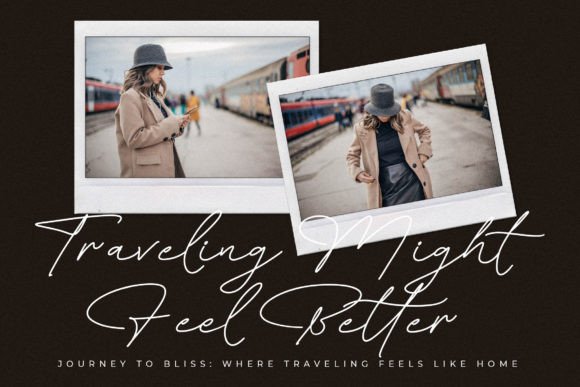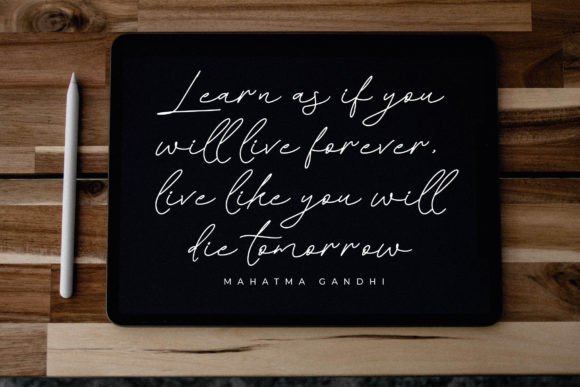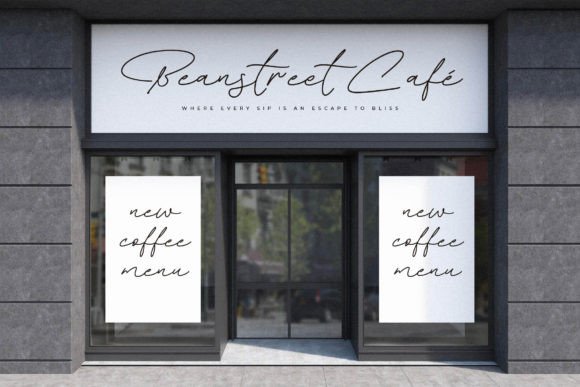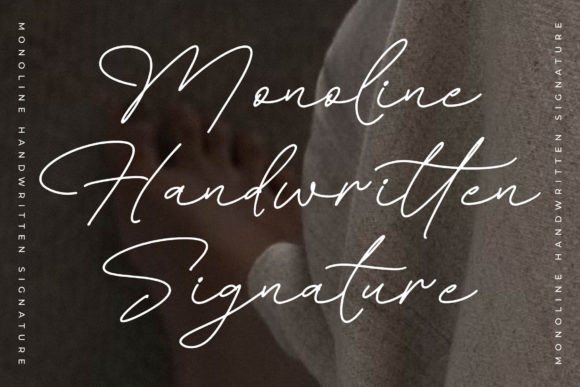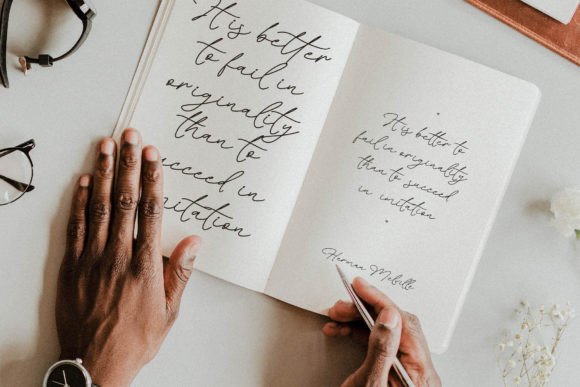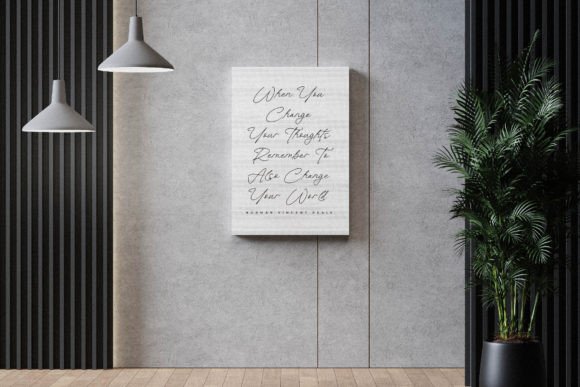
Discover the Elegance of Balleny Font: Elevate Your Designs to New Heights
Are you on the hunt for a font that exudes sophistication, elegance, and a touch of modern flair? Look no further than the Balleny Font. This exquisite handwritten font is meticulously crafted to capture the essence of classy calligraphic influences while maintaining a contemporary and fresh feel. In this article, we’ll dive into the world of Balleny Font, exploring its unique characteristics, uses, and benefits for designers and crafters alike.
The Story Behind Balleny Font
Balleny Font is more than just a collection of letters; it’s a masterpiece designed to evoke emotions and add a personal touch to any project. Its creation involved a deep understanding of calligraphy and a keen eye for detail, ensuring that each letterform is not only beautiful on its own but also harmonious when combined with others. This font is the brainchild of talented designers who aimed to create a typeface that would stand out in the digital age, where uniqueness and personality are highly valued.
Key Features of Balleny Font
- Classy Calligraphic Influences: Balleny Font draws inspiration from traditional calligraphy, giving it an air of sophistication and luxury. Each stroke and curve is carefully designed to mimic the fluidity of handwritten calligraphy.
- Contemporary and Fresh: While rooted in classic calligraphy, Balleny Font is surprisingly versatile and modern. It can easily adapt to various design contexts, from wedding invitations and branding to digital media and packaging.
- Handwritten with Love: The font’s handwritten nature gives it a personal and intimate feel, making it perfect for projects that require a human touch.
- High Versatility: Balleny Font comes with a range of characters, including uppercase and lowercase letters, numerals, and punctuation marks, ensuring it can be used for a wide array of projects.
Who Can Benefit from Balleny Font?
Balleny Font is a treasure trove for a variety of designers and crafters, including:
- Graphic Designers: Looking for a unique font to make their branding, logos, and marketing materials stand out.
- Wedding Planners and Stylists: Seeking elegant and beautiful fonts for wedding invitations, decor, and related stationery.
- Digital Content Creators: Needing a fresh and modern font for their blogs, social media posts, and video scripts.
- Crafters and Makers: Creating handmade products, such as crafts, art, and DIY projects, who want to add a personal and professional touch to their packaging and documentation.
Tips for Using Balleny Font Effectively
To make the most out of Balleny Font, consider the following tips:
- Pair it with Neutrals: Let Balleny Font be the star of your design by pairing it with neutral backgrounds or complementary fonts.
- Experiment with Colors: While the font itself is elegant, experimenting with different colors can enhance its beauty and adapt it to your brand’s palette.
- Play with Sizes: Don’t be afraid to vary the font size to create visual hierarchy and emphasize key messages.
Balleny Font is a game-changer for anyone looking to infuse their designs with elegance, personality, and a touch of sophistication. Its unique blend of calligraphic influences and modern freshness makes it a versatile tool for a wide range of projects. Whether you’re a professional designer or a passionate crafter, Balleny Font is sure to become your new favorite companion in the world of design.